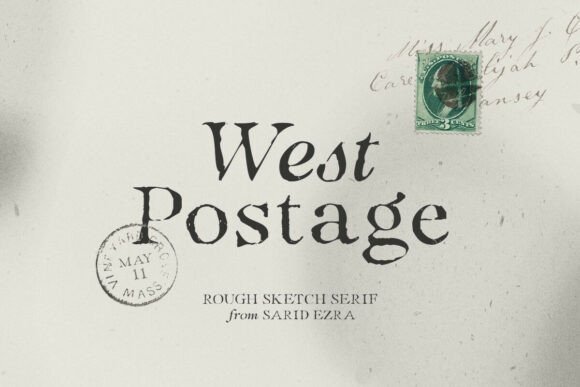
Testing West Postage for a Real Website Redesign
Every web designer knows that moment when you drop a new font into a hero section and everything either clicks or falls apart. I was mid-project on a boutique online store redesign, staring at a blank landing page, when I decided to try West Postage on a whim. The client wanted something that felt handcrafted but still polished enough for a digital storefront. That rough sketch quality in the letterforms caught my attention immediately. I imported the font into a mockup, placed it over a soft product image, and suddenly the layout had personality. This is the story of how West Postage moved from a casual test to a serious contender for a real web brand.
First Impressions: A Rough Sketch That Feels Intentional
West Postage is described as a rough sketch and organic serif with italic, and that is exactly what you get. The strokes have an uneven, hand-drawn texture that reads as warm and approachable rather than sloppy. In the hero heading of a landing page, the letters carry a natural rhythm that makes them feel alive. The italic variant adds a subtle forward lean that works beautifully for subheadings or short product callouts. What surprised me most was how well the font held up against a busy background. I tested it on a light cream backdrop and then on a darker moody image, and the organic edges remained visible without losing legibility. For a boutique brand or a coaching website, that blend of rough charm and readable structure is hard to find in a single display font.
Where West Postage Shines in a Digital Layout
In my project, West Postage became the primary font for hero titles, section headings, and logo text. The handwritten quality gave the brand an immediate sense of authenticity. For a small business website selling handmade goods, that visual honesty matters. The font worked especially well for short phrases, call-to-action banners, and decorative headings where the audience needs to feel a human touch. I also experimented with using West Postage for product labels and promotional graphics within the online store. The rough sketch style made each product feel like a limited edition. However, I quickly learned that this font is not ideal for long body copy or dense paragraphs. The irregular letterforms that make it charming at large sizes become distracting at small sizes, especially on mobile screens.
Readability and Responsive Considerations
Readability is always the first thing I check when testing a display font for the web. With West Postage, the key is to use it at larger sizes where the organic strokes have room to breathe. I found that a minimum heading size of 32 pixels on desktop and 28 pixels on mobile kept the letters clear. For smaller buttons or captions, I paired West Postage with a clean sans serif to maintain visual hierarchy. The font performed well on light backgrounds, where the sketch-like edges stood out naturally. On dark backgrounds, adding a slight text shadow or increasing letter-spacing helped preserve contrast. I also checked the font on a few real devices, including an older smartphone, and the legibility held up as long as I kept the sizing generous. If you are using West Postage for image overlays, make sure the background has enough contrast, especially with lighter weights.
Building a Complete Digital Brand Kit
Once I settled on West Postage for the hero and heading levels, I needed a supporting typeface for the rest of the layout. The natural pairing was a simple sans serif for body copy, navigation menus, and product descriptions. The contrast between the rough handwritten serif and a clean geometric sans created a clear visual hierarchy. Visitors scanning the homepage could immediately distinguish the brand voice from the functional content. I also used West Postage for pull quotes and testimonial highlights, where the organic style added a personal, conversational feel. For the site footer and secondary links, I relied entirely on the sans serif to keep the layout readable. This pairing strategy made the font feel like a deliberate design choice rather than a decorative afterthought.
Practical Advice for Using West Postage in Projects
Realistic Use Cases Across Different Website Types
West Postage fits naturally into several digital scenarios beyond the boutique store I was designing. A coaching website could use the font for the hero headline and section dividers to communicate warmth and approachability. A portfolio homepage for a creative professional might feature the font in project titles and about section headers, reinforcing a handcrafted aesthetic. A course sales page could benefit from West Postage in the pricing highlight or the main value proposition, where the rough texture signals that the content is personal and not corporate. For a blog redesign, the font works well for post titles and quote blocks, especially if the brand leans toward editorial or lifestyle content. In every case, the key is to limit the font to display sizes and let a simpler companion typeface handle the heavy reading.
Mobile and Performance Notes
Responsive layouts require extra attention when using a display font like West Postage. On smaller screens, the organic strokes can feel crowded if the letter-spacing is too tight. I added 0.5 pixels of tracking on mobile headings to improve clarity. The font also loads lighter than many decorative serifs, which helps with page speed. I tested the font on a standard landing page with a few background images, and the performance was solid. For digital ads and social media graphics, West Postage brings that same hand-drawn personality without requiring additional texture overlays. The font naturally gives your visuals a tactile feel that stands out in a feed of polished, sterile typography.
Why West Postage Works for Modern Web Brands
The best web design choices feel both intentional and effortless. West Postage delivers a rough, organic personality that resonates with audiences looking for authenticity. It is not a font for every project, but when you need a display typeface that feels handwritten, warm, and visually distinctive, it is a strong option. The italic variant adds a nice layer of movement for subheadings or accent phrases. For web designers, UI designers, and digital product creators who build brands from scratch, having a font like West Postage in your toolkit means you can offer clients a genuine handcrafted look without sacrificing readability. Whether you are designing a landing page, a campaign site, or a full brand identity, this font gives you a memorable starting point that feels human.
Final Check Before Going Live
Before publishing any site that uses West Postage, I always run a quick audit across three screen sizes and two browsers. I check that the font renders cleanly in the hero section, that the italic version appears correctly in subheadings, and that the pairing sans serif remains easy to read in body copy. I also make sure the font files are properly optimized for web delivery. If you are using West Postage for logo text, export a high-resolution version for retina displays. With those checks in place, the font becomes a reliable part of your digital brand toolkit, not just an experimental choice. For any project where rough sketch charm and organic serif structure are the goal, West Postage deserves a test drive in your next layout.